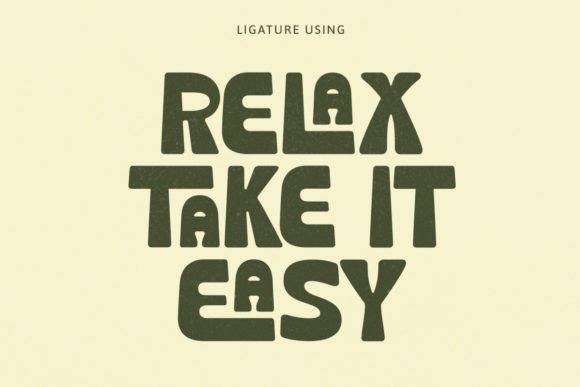
Grupi Font
Grupi – Bold Reverse Contrast Font
Grupi is a chunky, rounded font with a cool reverse contrast that’s made for retro, groovy, and pop-style designs. It’s awesome ligatures and alternative characters let you get creative and playful with your projects. Whether you’re going for something fun or just want a bold, standout look, Grupi has got you covered.